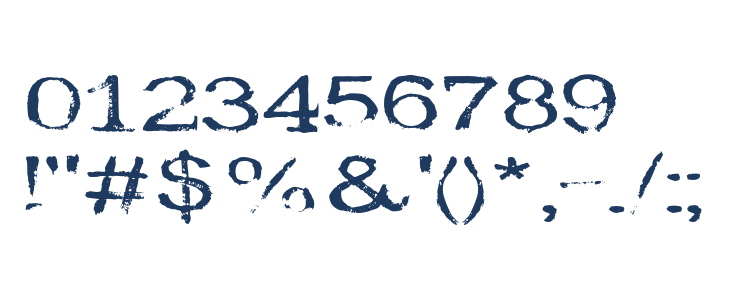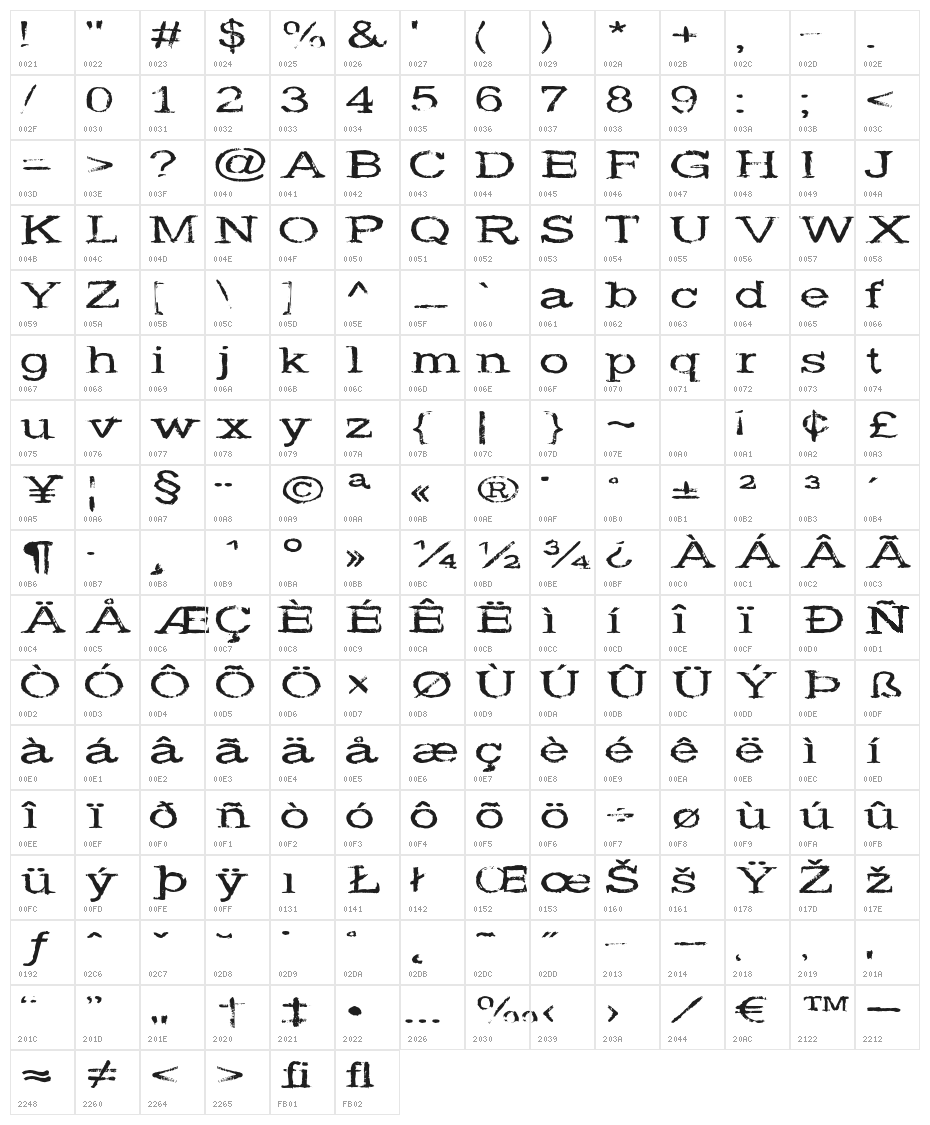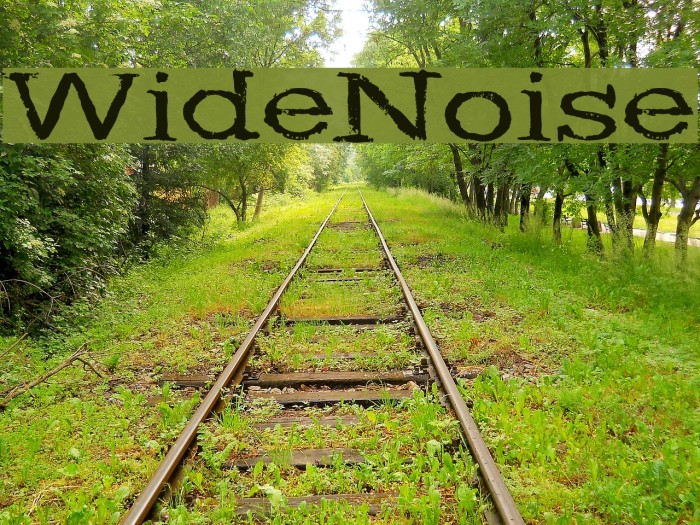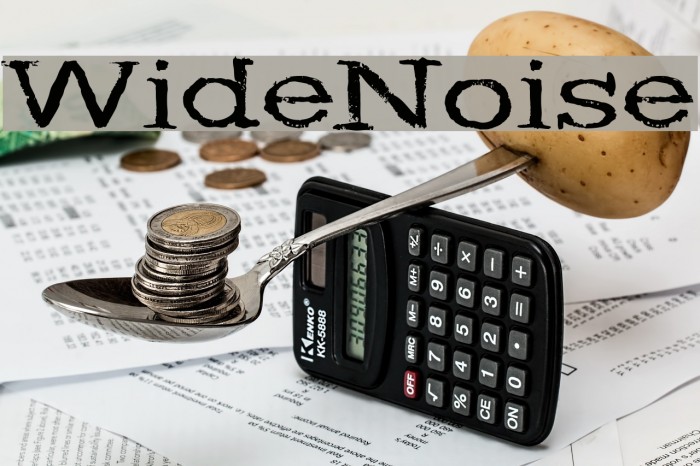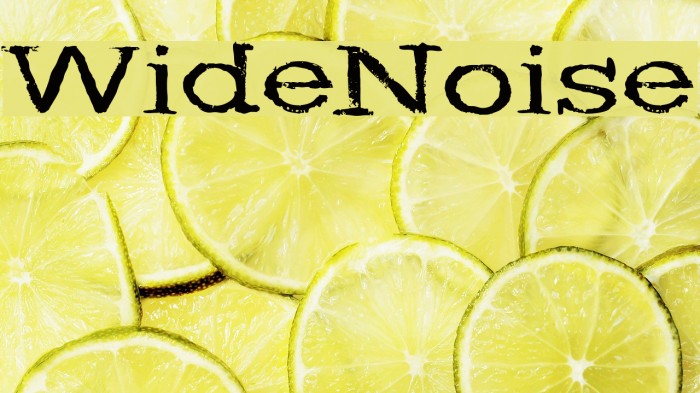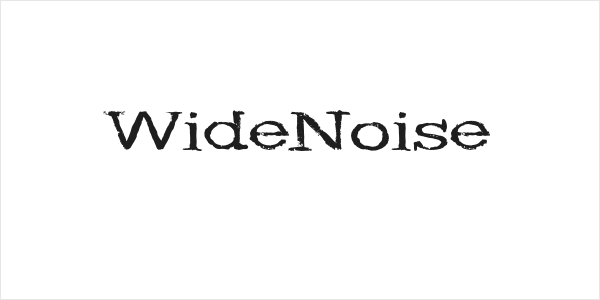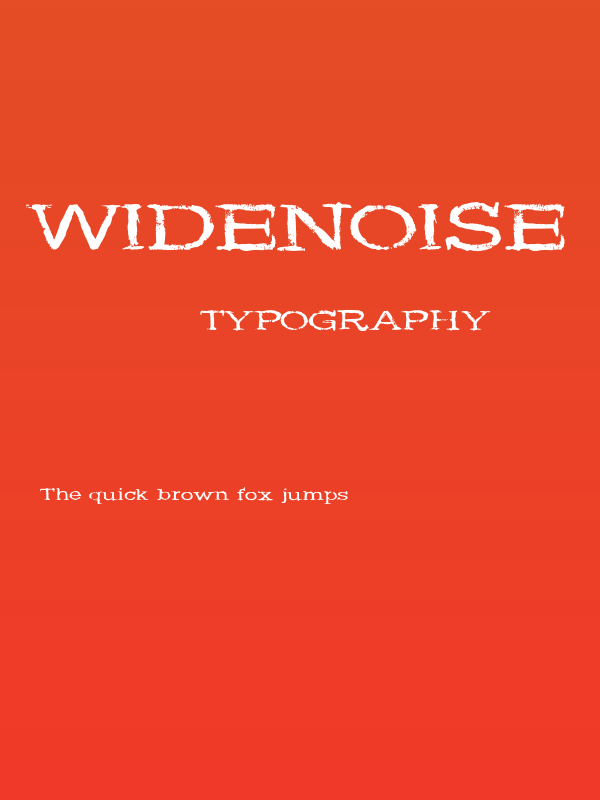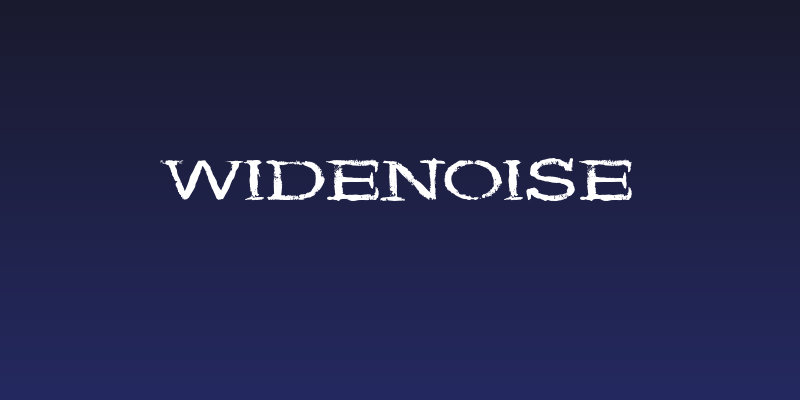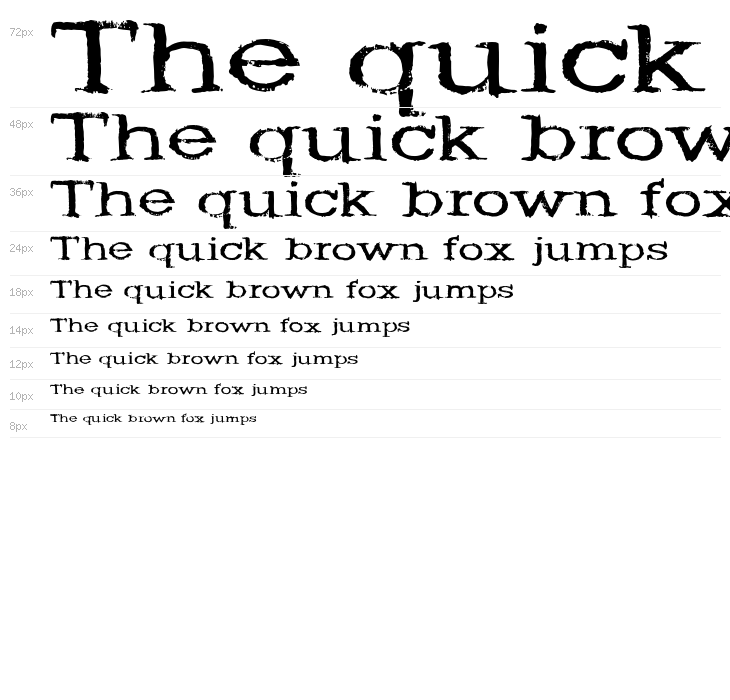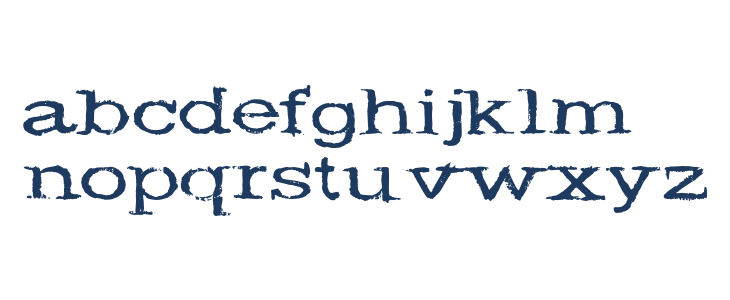
WideNoise Font
WideNoise Description
This font features a distressed, textured appearance that gives it a rugged and worn look. The characters are bold and slightly irregular, with rough edges that suggest a hand-crafted or vintage printing style. The uppercase and lowercase letters maintain a consistent design, with a slight slant that adds a dynamic feel. Numbers and special characters follow the same aesthetic, making the font versatile for various design needs. Its unique style makes it stand out, ideal for projects that require a bold statement or an artistic touch.
| Proposed Projects | Ideal for posters, album covers, branding projects, and any design requiring a bold, artistic touch. |